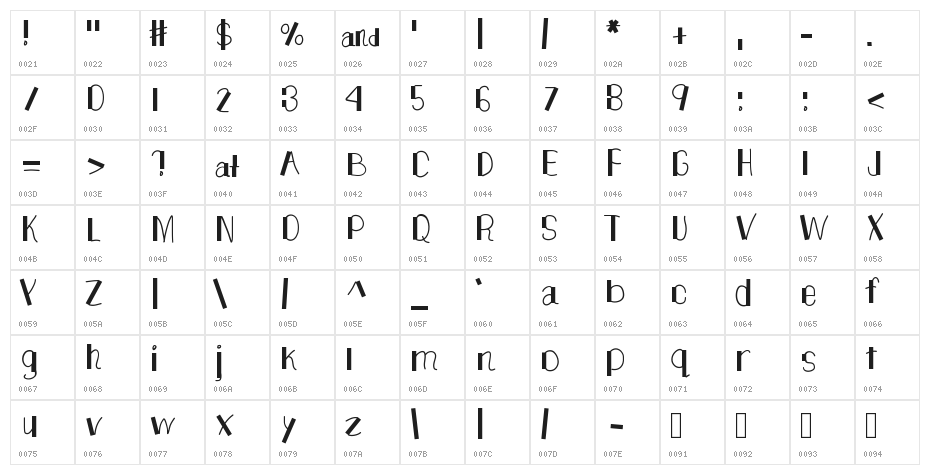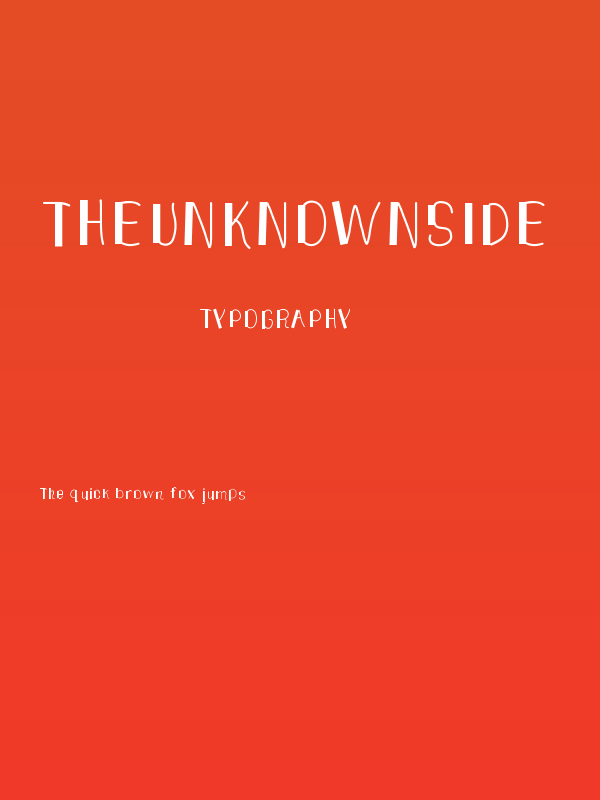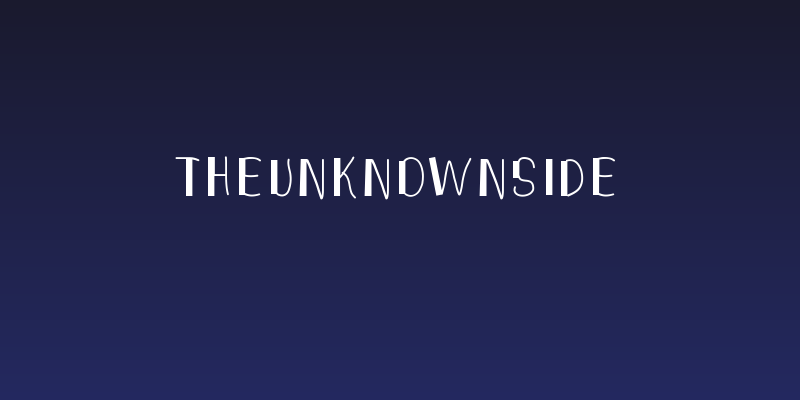
TheUnknownSide Font
TheUnknownSide Description
This font features a unique and playful design with a mix of straight and curved lines, creating an eclectic and artistic appearance. The uppercase letters have a bold and slightly whimsical style, with varying stroke widths that add character and flair. The lowercase letters maintain this playful aesthetic, with some characters featuring unexpected curves and angles. The numbers are bold and distinctive, matching the overall quirky style of the font. Special characters are creatively designed, adding to the font's decorative appeal. This font is ideal for projects that require a fun and artistic touch.
| Proposed Projects | Ideal for creative projects such as posters, invitations, children's books, and branding that seeks a whimsical touch. |